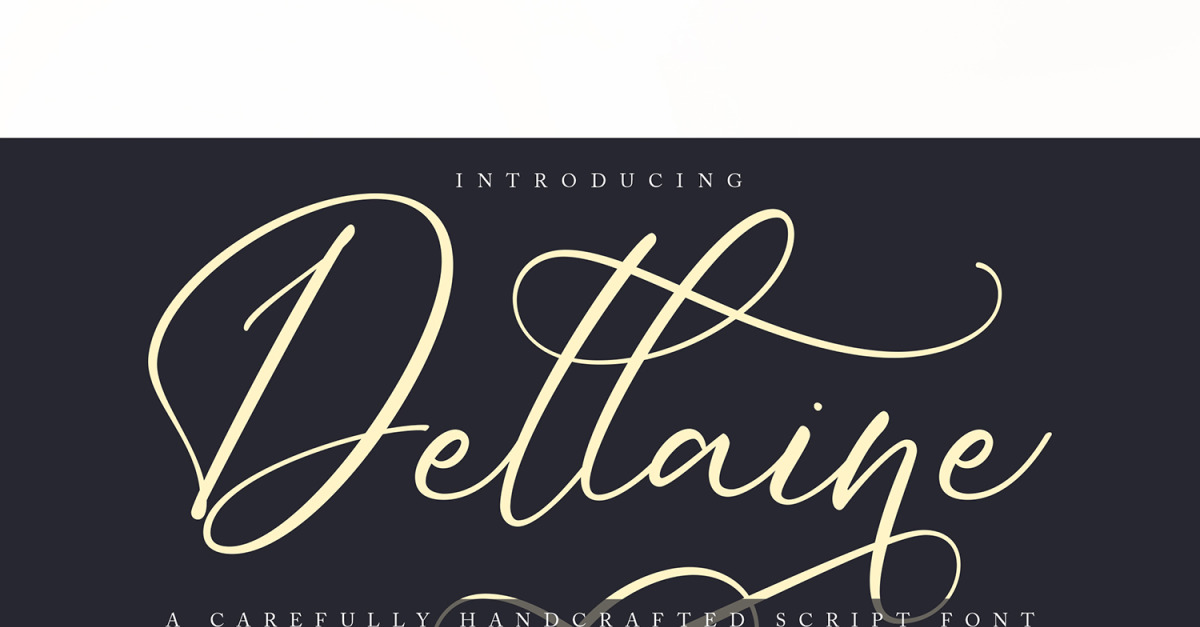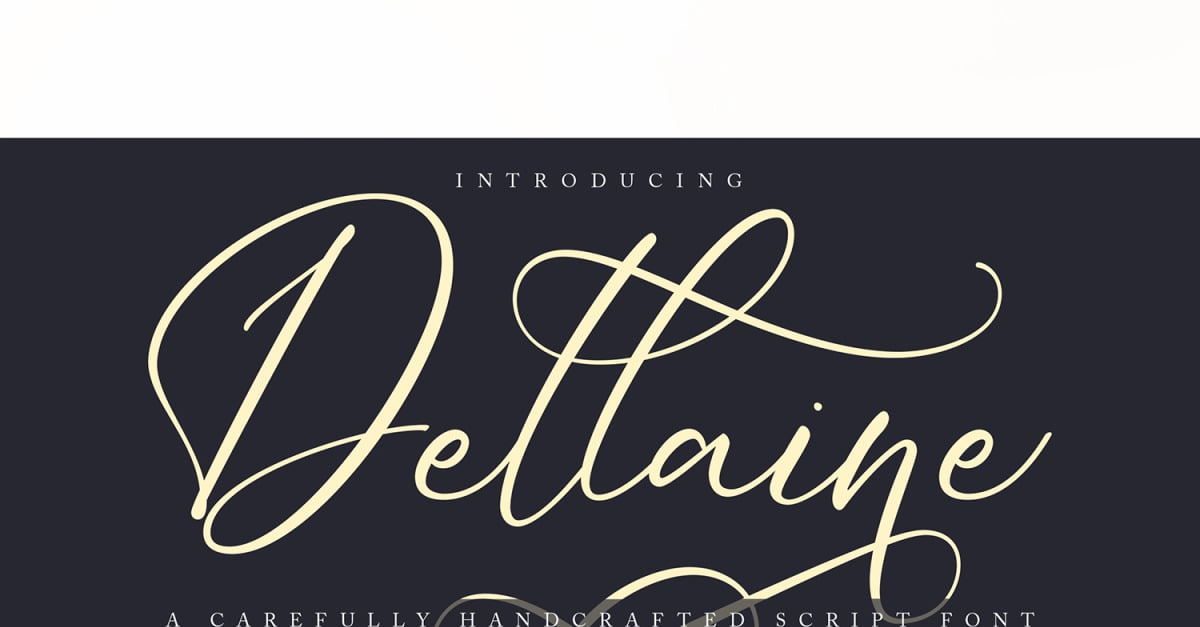
Dellaine | A Carefully Handcrafted Cursive Font
**Dellaine | A Carefully Handcrafted Script Font** with a calligraphy style, So beautiful on invitation like greeting cards, branding materials, business cards, quotes, posters, and more!